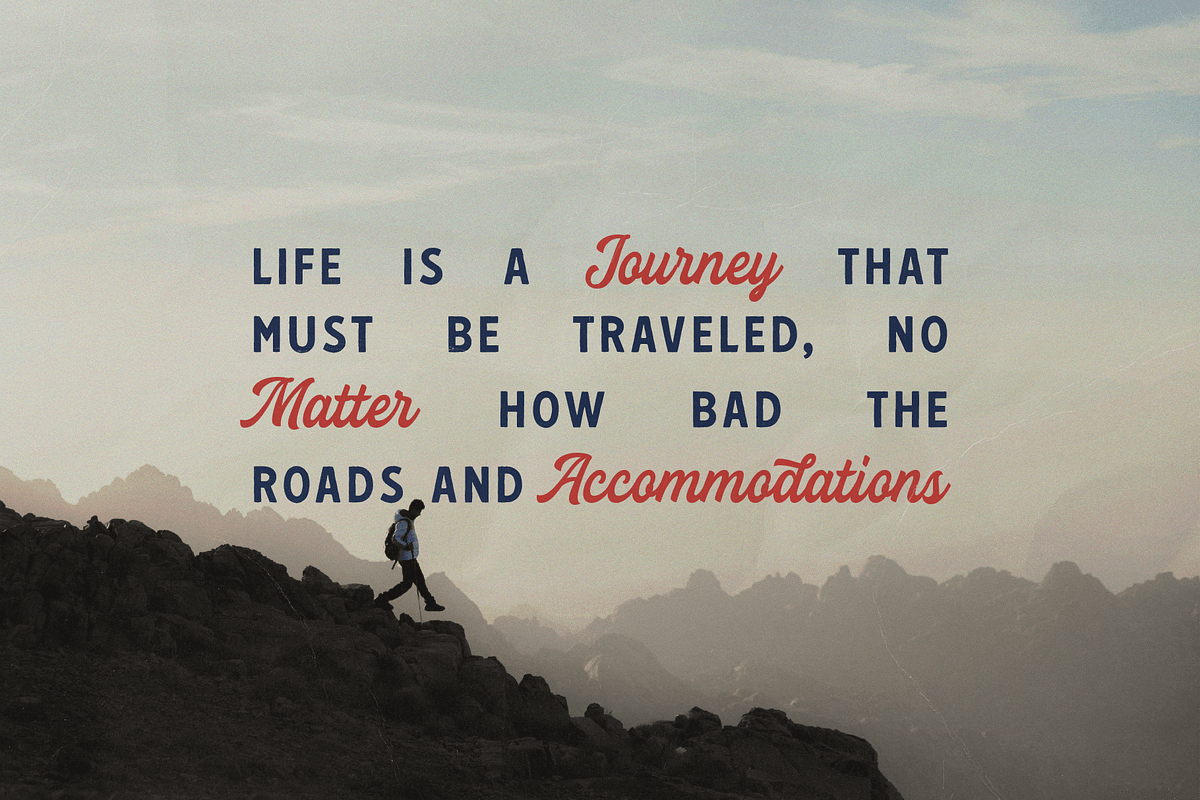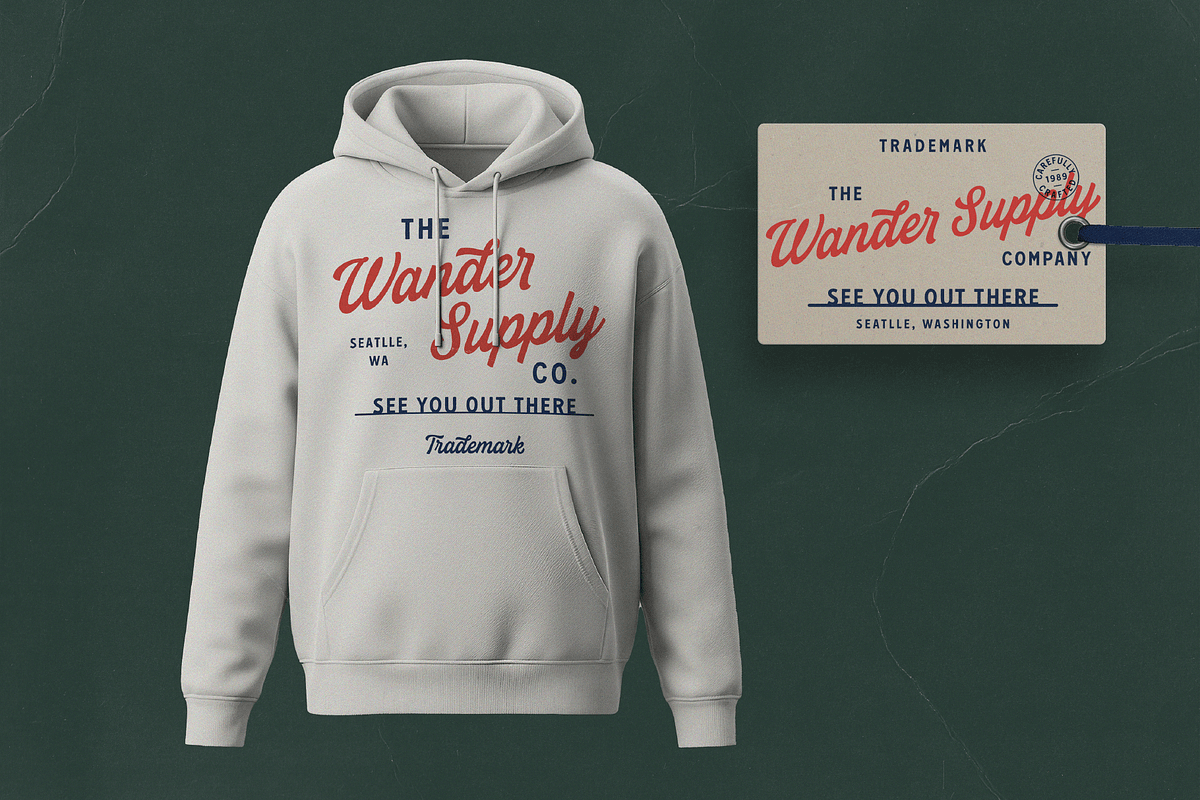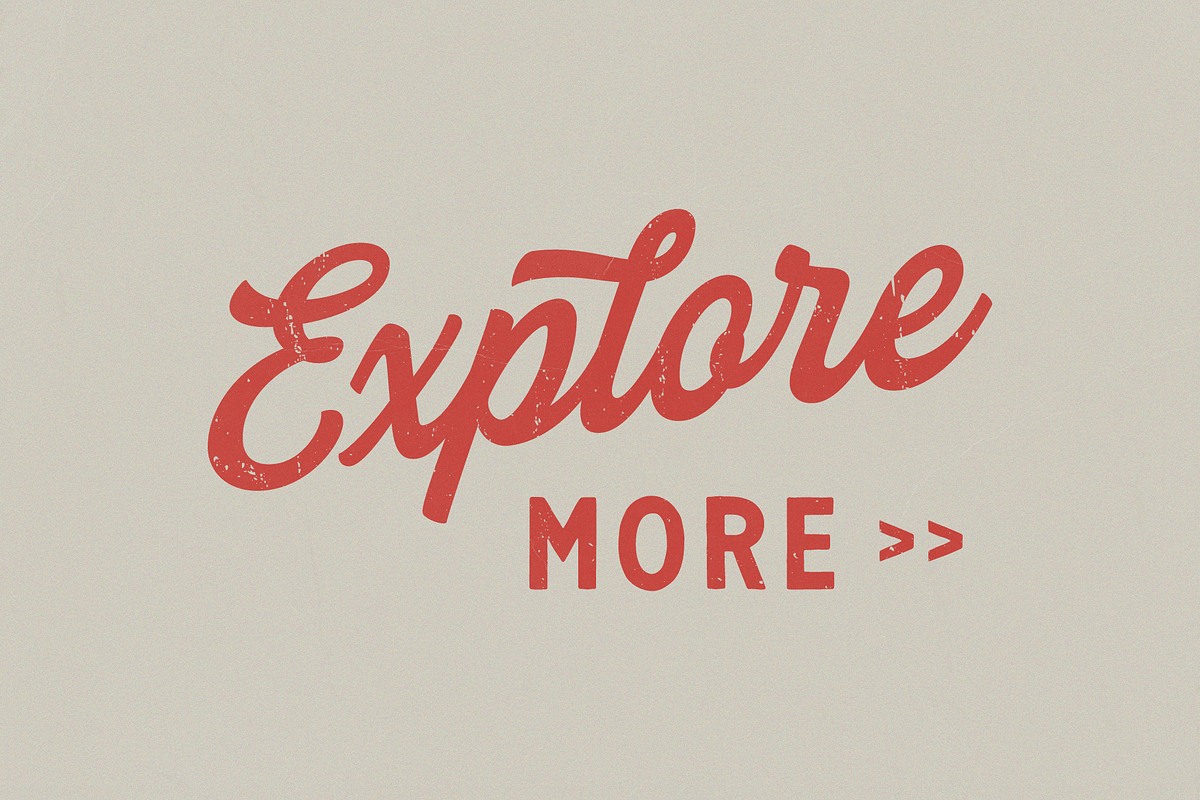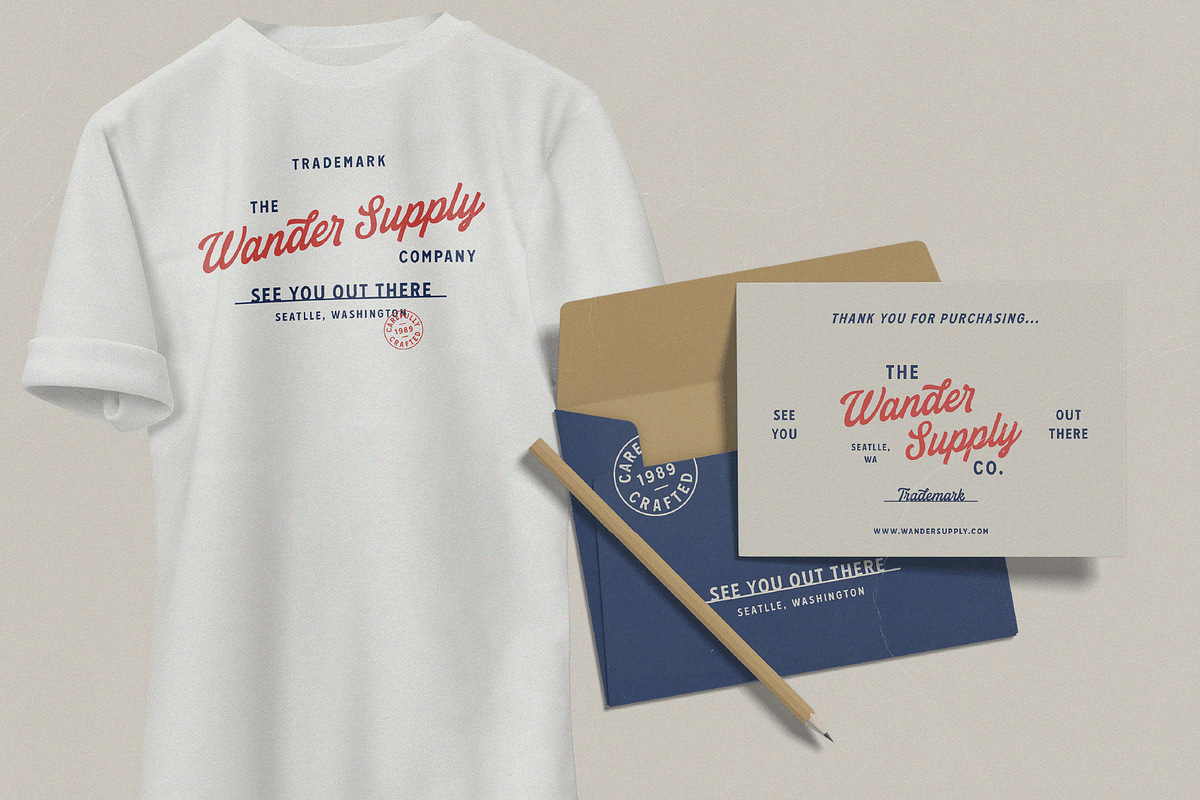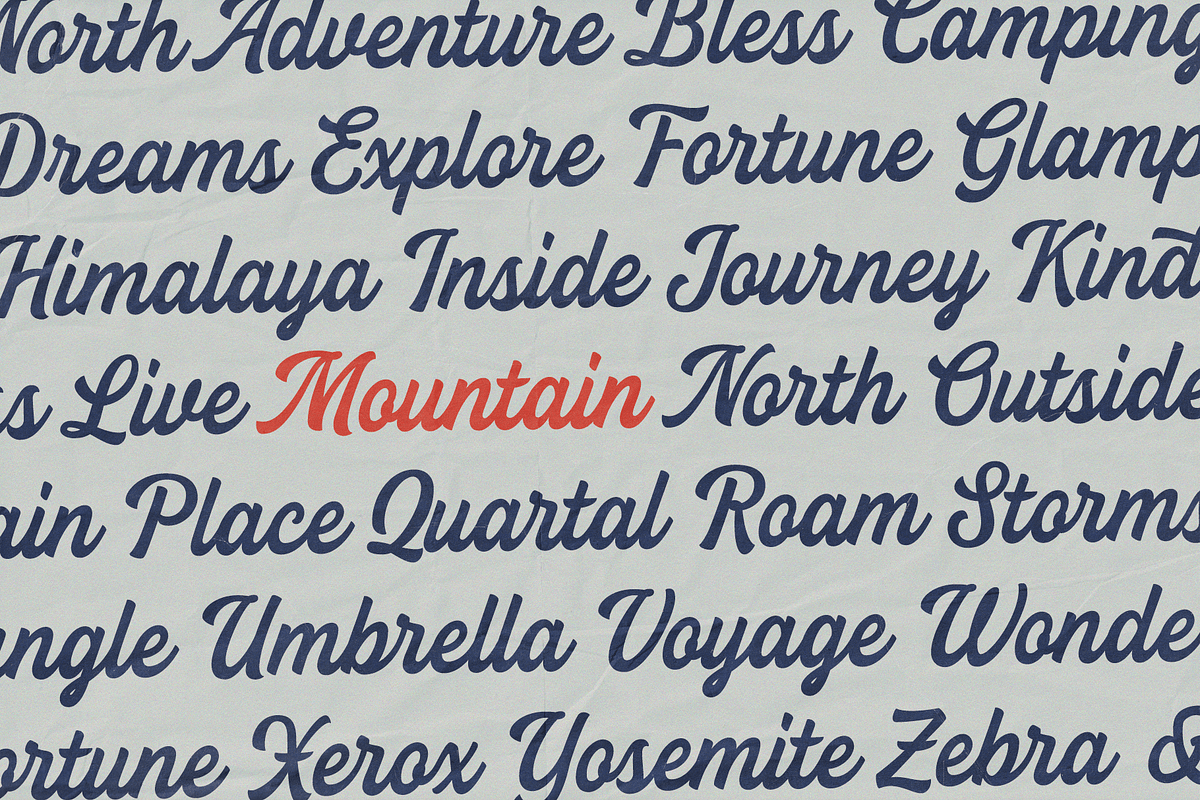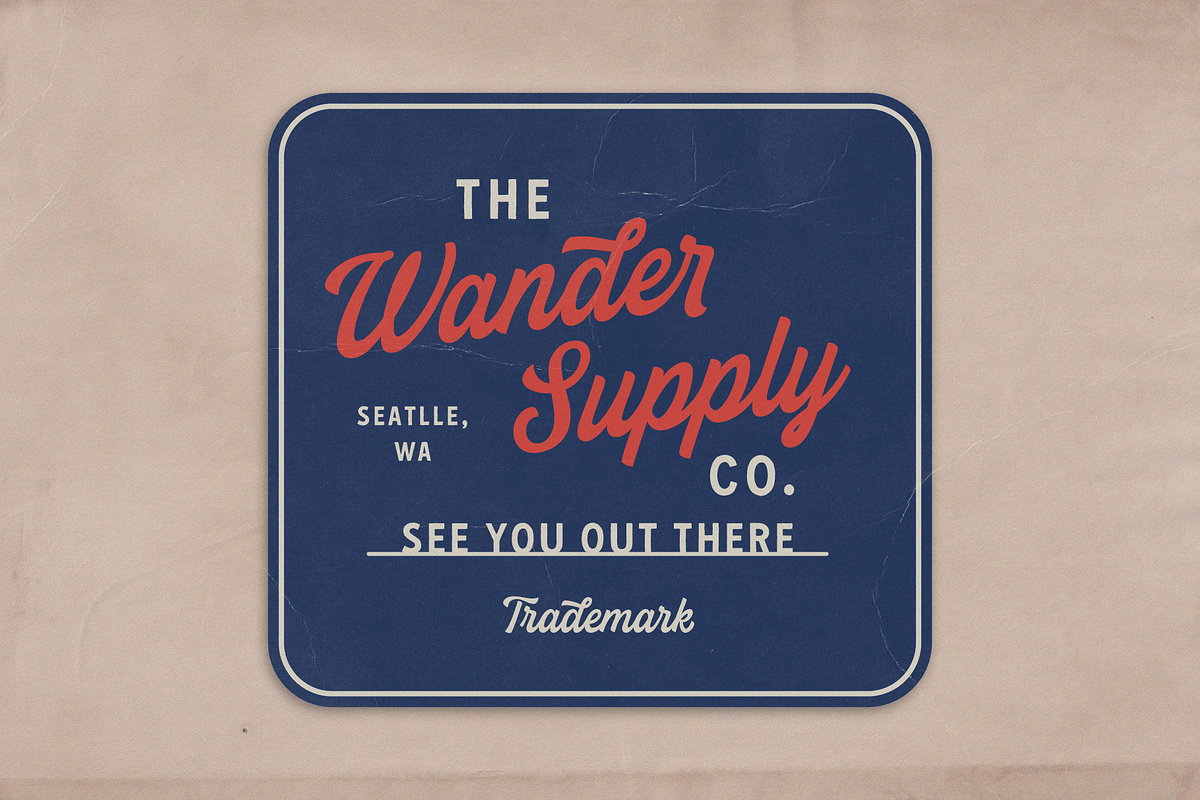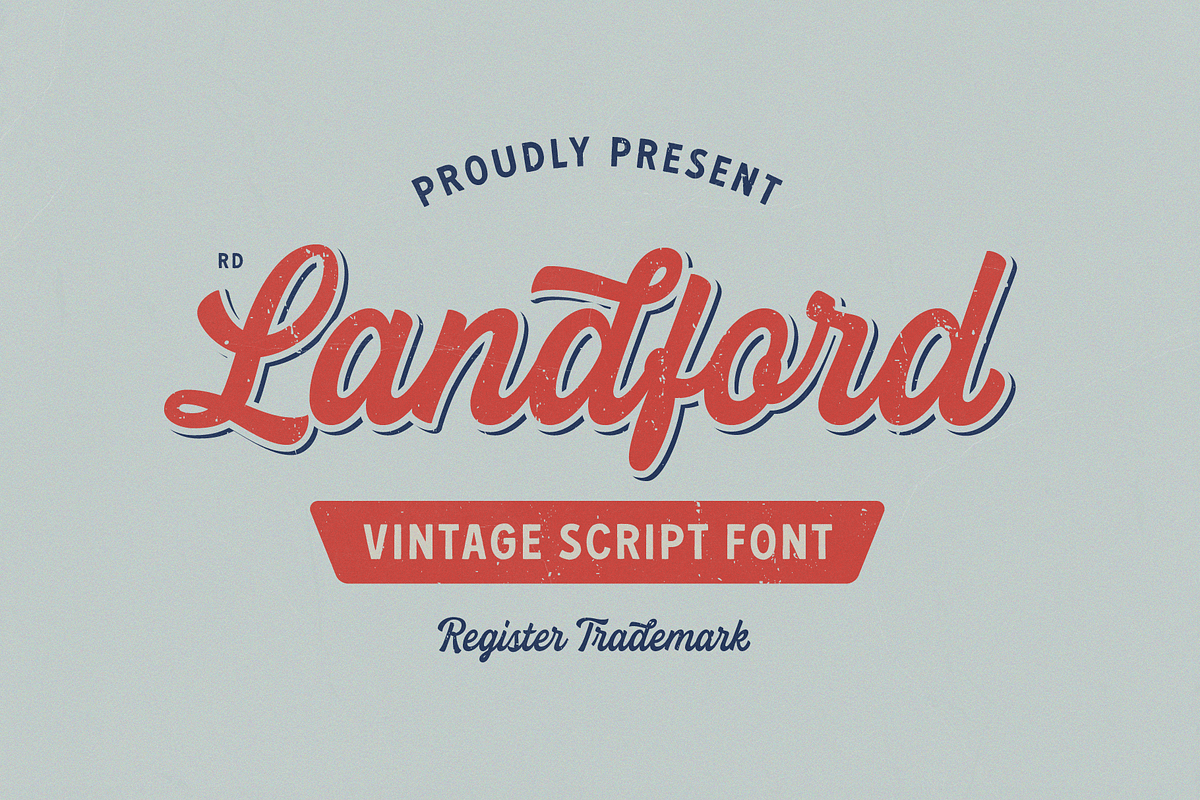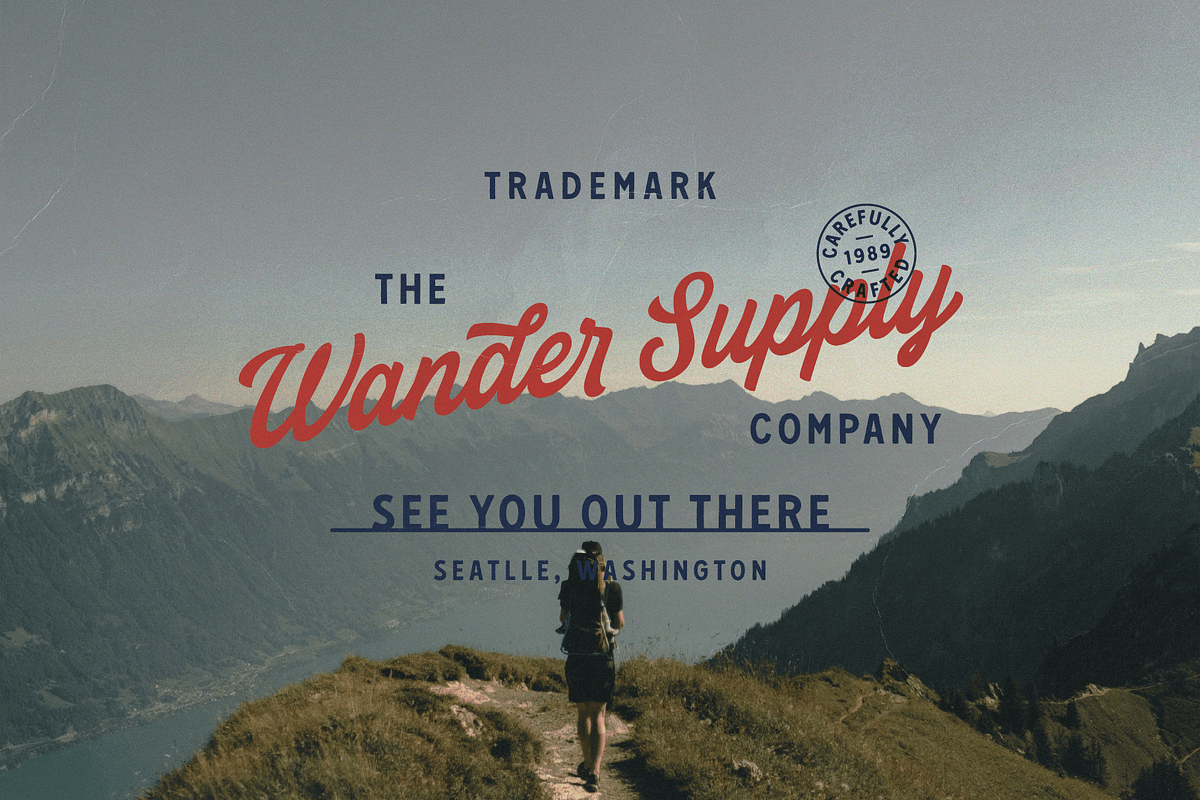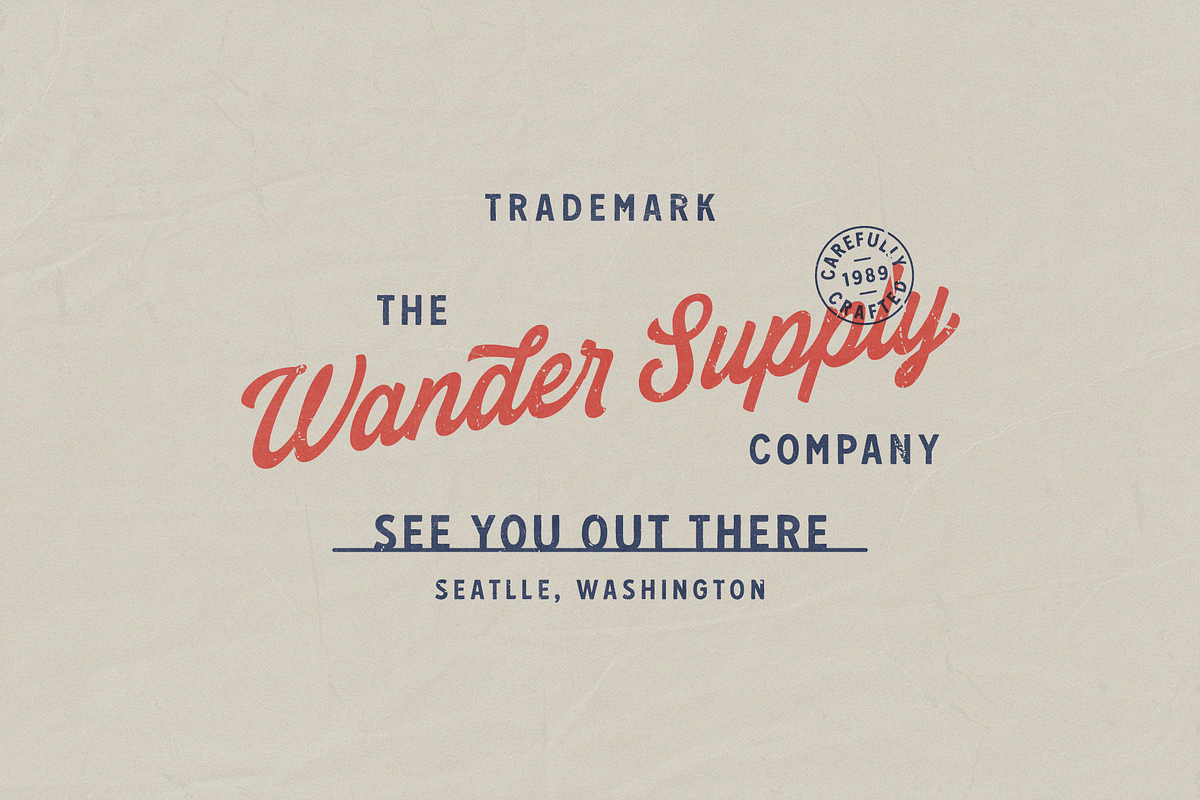
RD Landford Font
Introducing the RD Landford Script Font! Landford is a playful yet striking clean brush script font. It's chunky, hand-drawn letterforms are guaranteed to stand out whether that be on lighthearted merchandise designs, branding project, logos, homeware design, product packaging, lettering compositions, t-shirts or more impactful quote designs.
Ligatures are also available for several lowercase characters. These are only accessible via software with opentype capability or a glyphs panel, e.g. Photoshop/Illustrator.